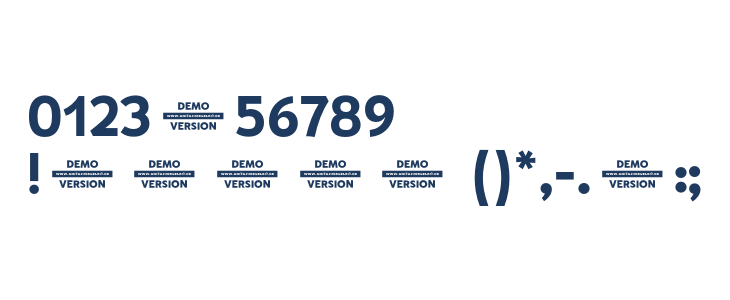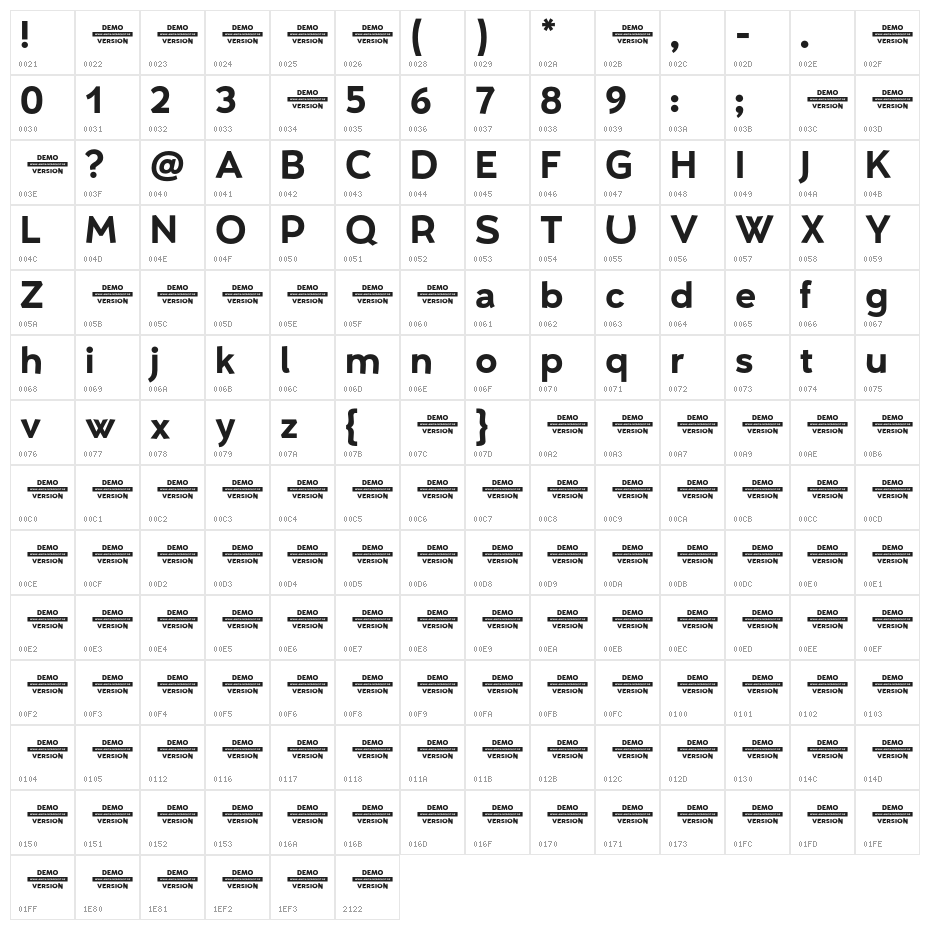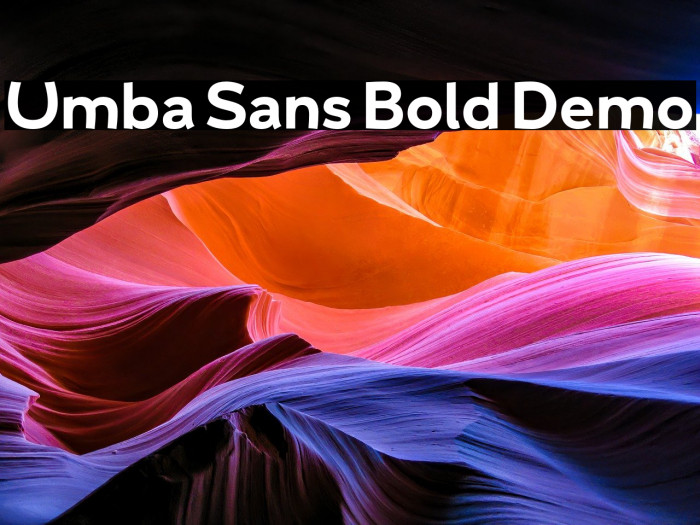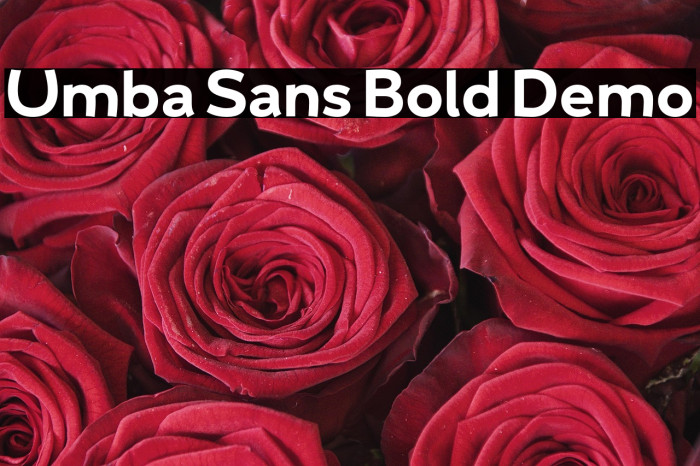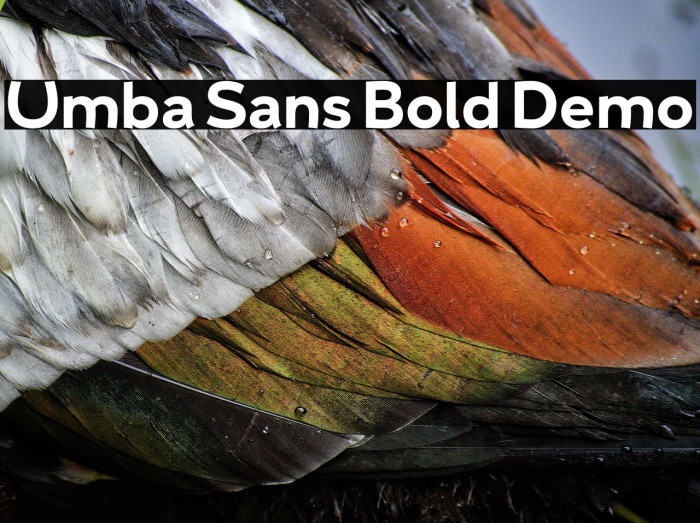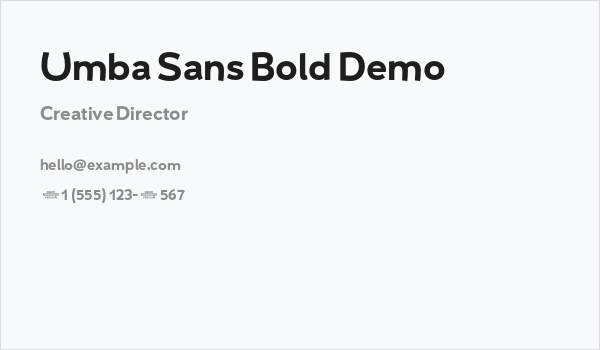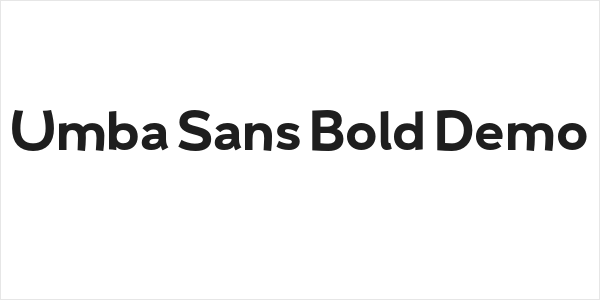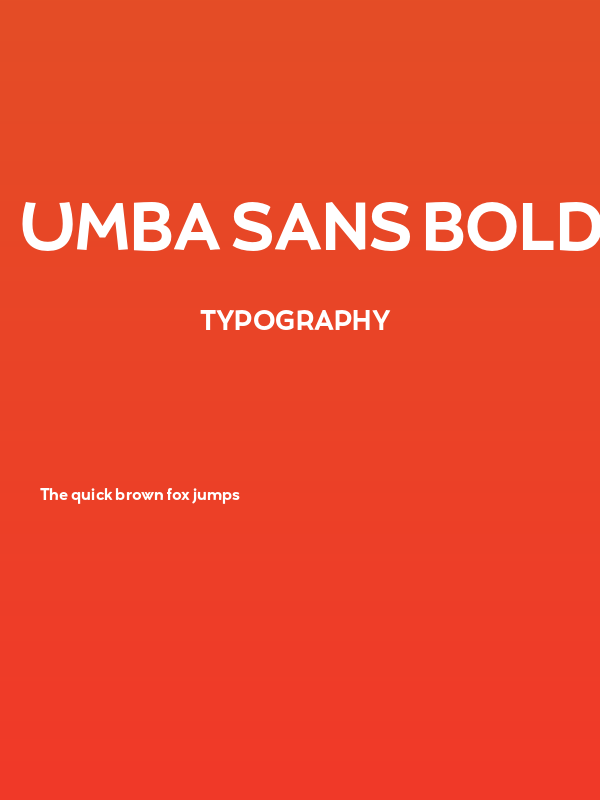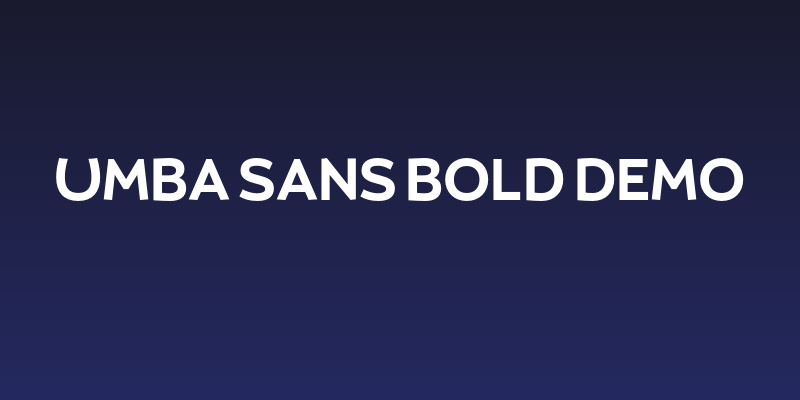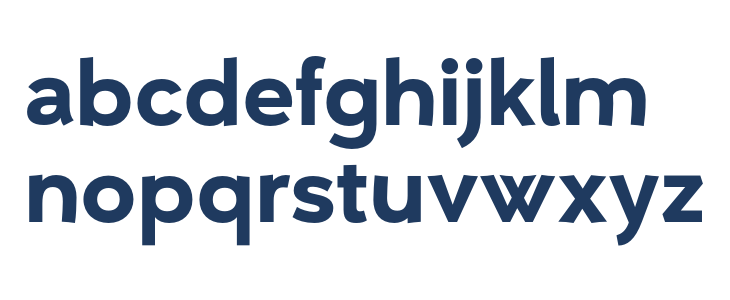
Umba Sans Bold Demo Font
Umba Sans Bold Demo Description
This font features a bold and modern sans-serif style with clean, geometric lines and a strong presence. The uppercase letters are uniform and well-balanced, while the lowercase letters maintain a rounded and approachable appearance. The numerals are clear and easy to read, making them suitable for various applications. The special characters are distinct and harmonize well with the overall design. This font is versatile, offering a contemporary look that can enhance both digital and print media.
Use CaseHeadlines, Logos, Branding
Proposed ProjectsIdeal for branding, advertising, headlines, and digital media projects.